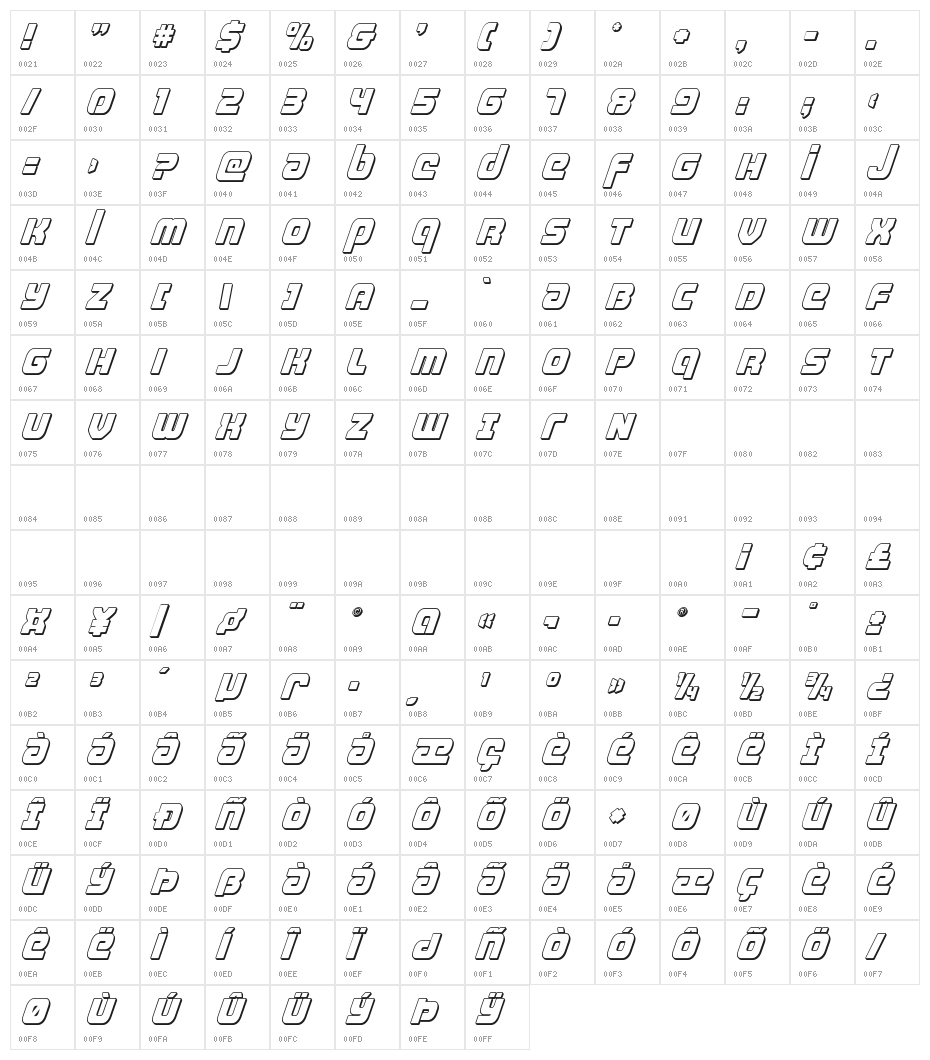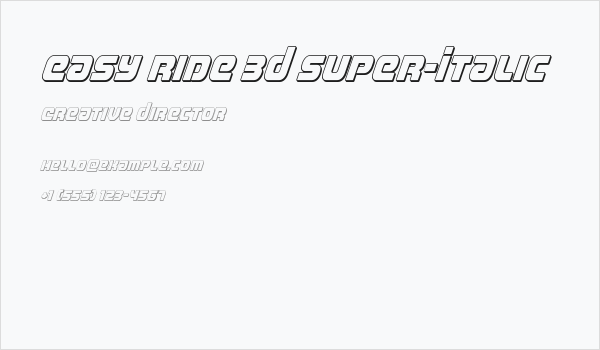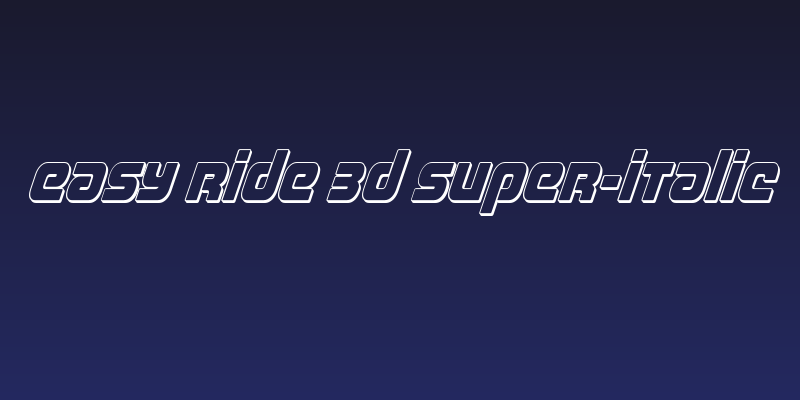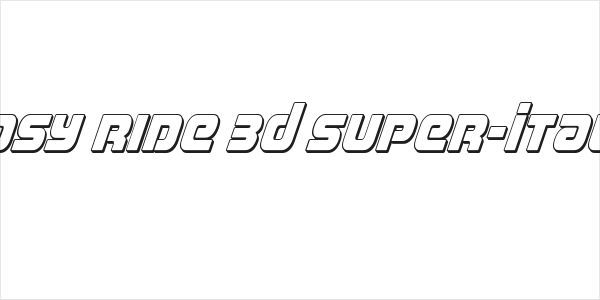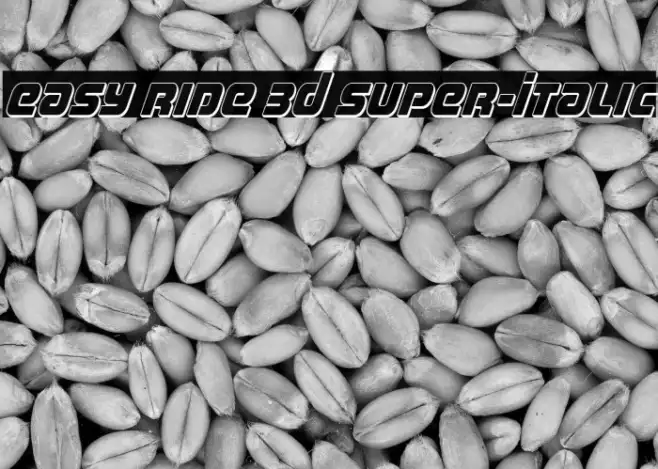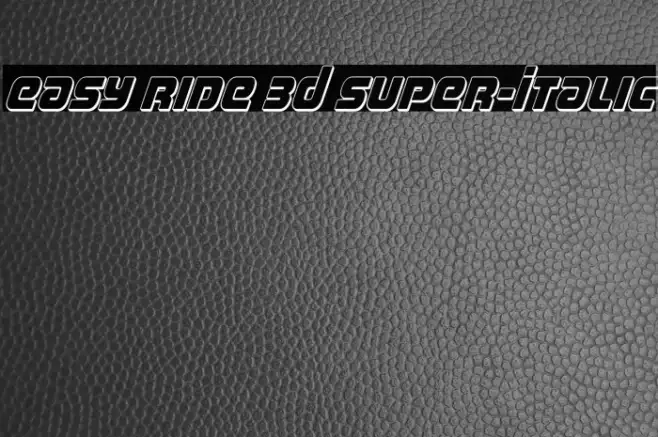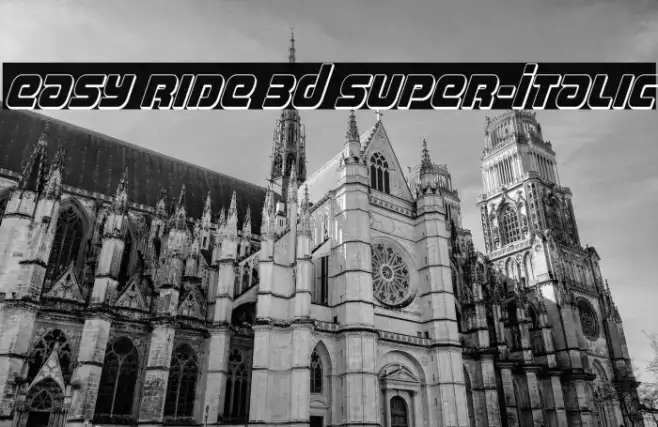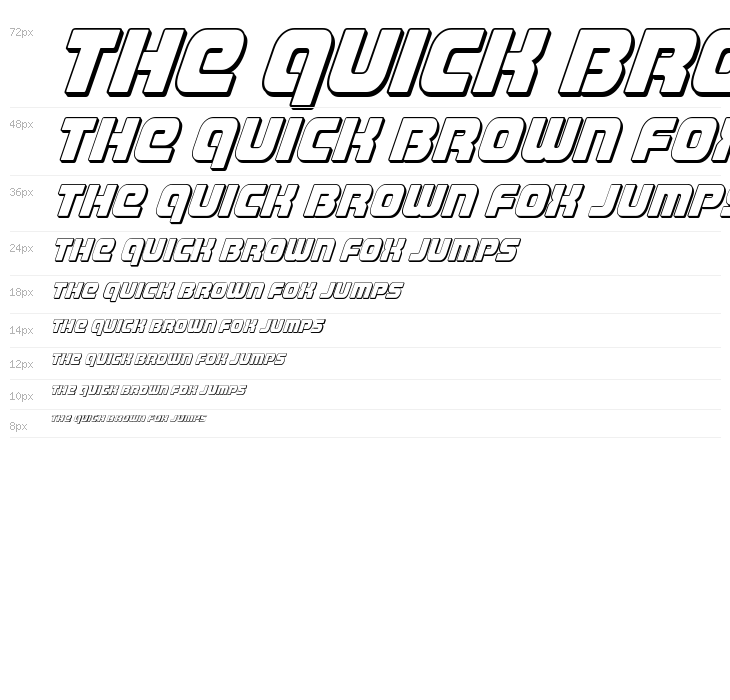
Easy Ride 3D Super-Italic Font
Easy Ride 3D Super-Italic Description
This font features a bold, three-dimensional appearance with a distinct italic slant, giving it a dynamic and energetic feel. The characters are outlined, creating a sense of depth and movement, making it ideal for eye-catching designs. The uppercase and lowercase letters maintain a consistent style, with sharp angles and clean lines that enhance its modern aesthetic. The numerals and special characters are equally bold and stylized, ensuring uniformity across all text elements. This font's unique 3D effect and italicized form make it stand out, perfect for projects that require a striking visual impact.
| Proposed Projects | Ideal for sports branding, video game titles, posters, and dynamic advertising campaigns. |